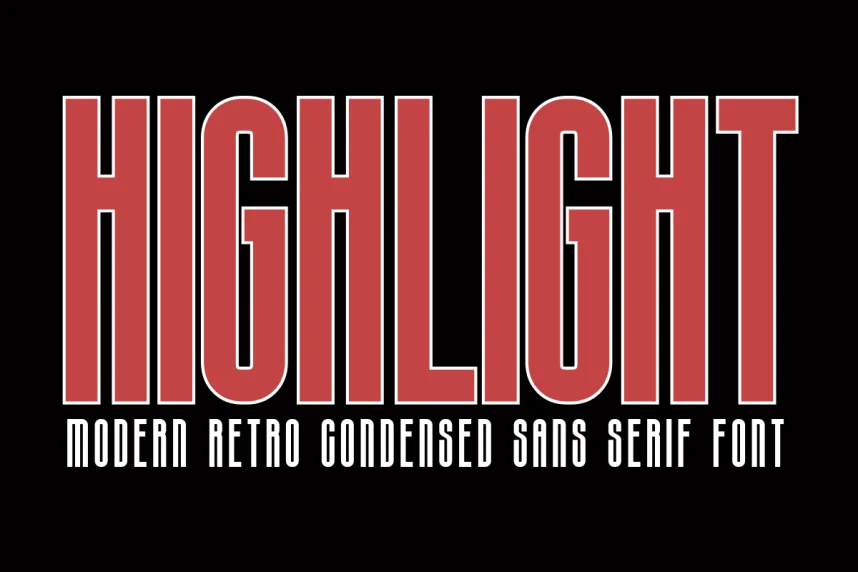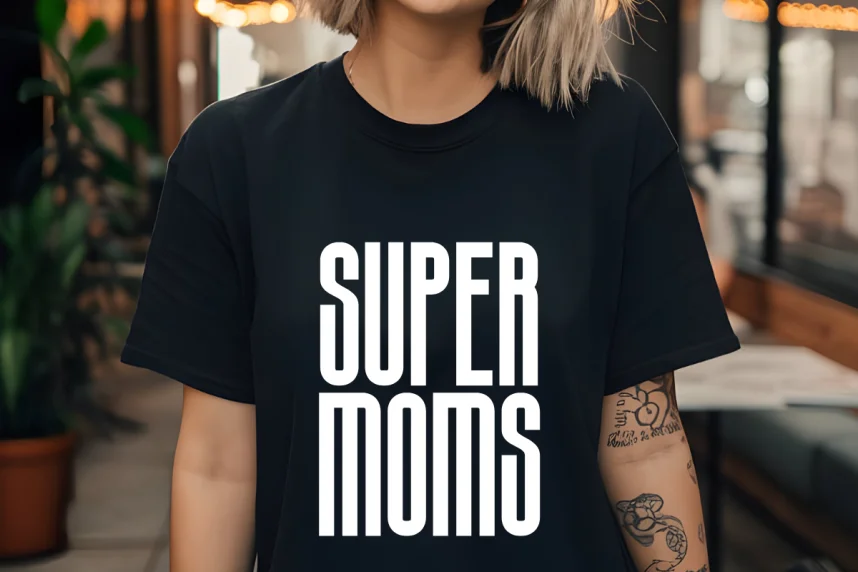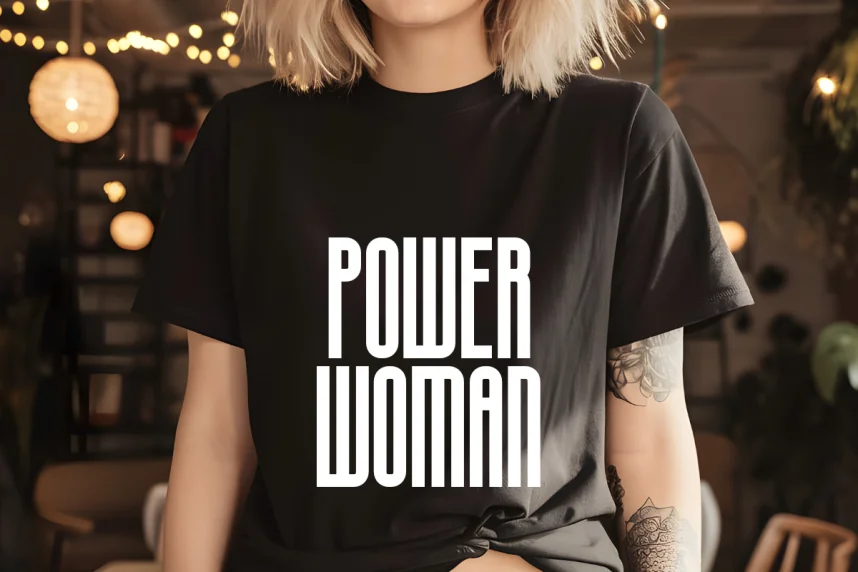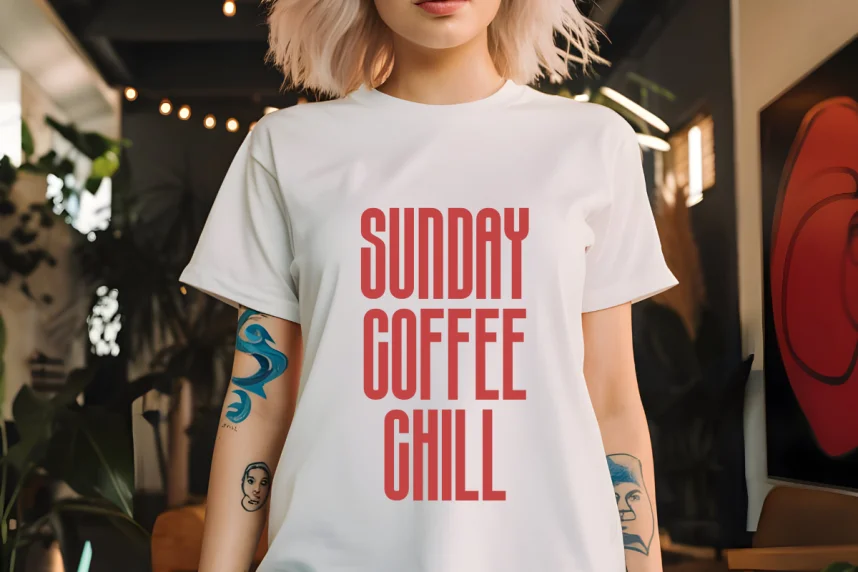
Highlight Font is a display typeface designed for emphasis-driven text such as headlines and short statements. Designers frequently need fonts that draw attention without harming readability. Highlight provides strong shapes and clear spacing to support that goal.
This font falls under the display category. Its letterforms feature bold strokes, rounded edges, and consistent alignment. The characters remain legible even at larger sizes, making them suitable for visual focus areas.
Highlight Font works best for headlines, posters, social media graphics, advertising banners, and branding accents. It is not intended for long paragraphs but performs well in short-form text. Pairing it with a clean sans-serif font ensures balance in layouts.